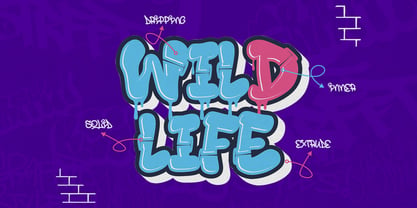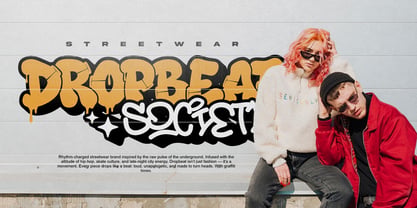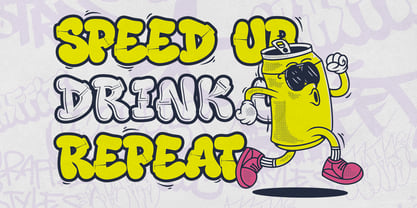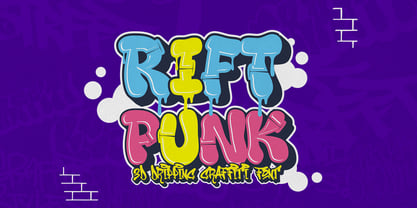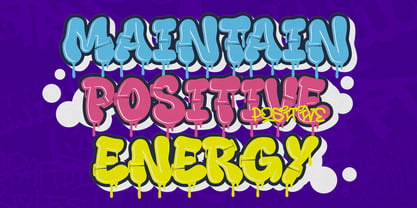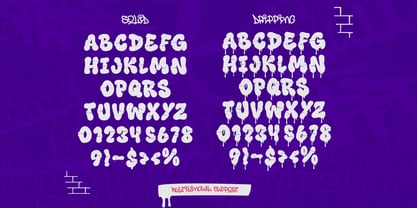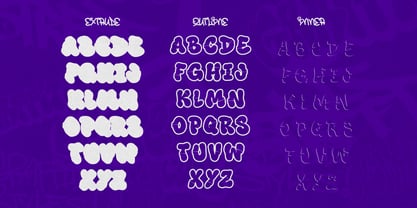
Rift Punk Graffiti
by Sipanji21
The Rift Punk Graffiti Font Family was designed by Sipanji and published by Sipanji21. Rift Punk Graffiti contains 5 styles and family package options. More about this family
Rift Punk is a bold and playful graffiti display font featuring rounded characters with subtle decorative graffiti details. This font is crafted with a layered 3D style, giving your designs a strong urban and street art personality. Rift Punk comes in 3 versatile styles: Solid/Clean, Dripping, and Outline, plus Extrude and Inner Shadow layers to boost your design depth and versatility.
Perfect for urban branding, t-shirt designs, hip-hop event posters, stickers, skate graphics, and craft projects with Cricut or Silhouette. Whether you’re creating street-style visuals or bold youth-centric designs, Rift Punk adds the energy and street soul you need!
Designers: Sipanji
Foundry: Sipanji21